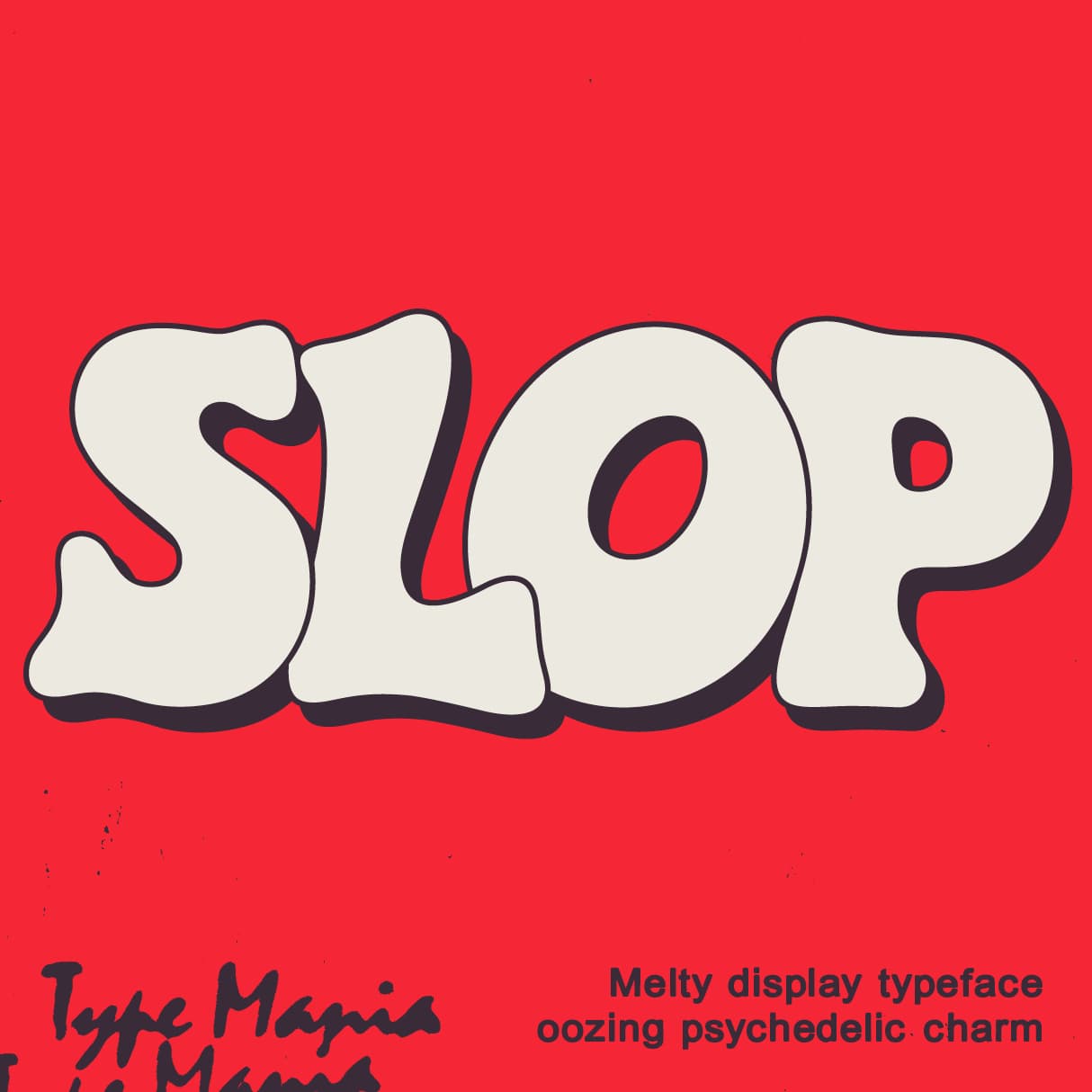
<p><strong>Slop TM</strong> – a chunky, melty display typeface that oozes psychedelic charm. Built to stand out in posters, branding, and bold editorial work 🫡🫡</p><p></p><p><strong>Zip includes</strong></p><ul><li><p>OTF file</p></li><li><p>TTF file</p></li><li><p>WOFF2 file</p></li></ul><p></p><p><strong>Languages</strong></p><ul><li><p>Basic Latin</p></li><li><p>Western European</p></li><li><p>Euro</p></li><li><p>Central European</p></li><li><p>Pan African Latin</p></li></ul><p></p><p><em>Graphic Design is Easy (with Type Mania)®</em></p>